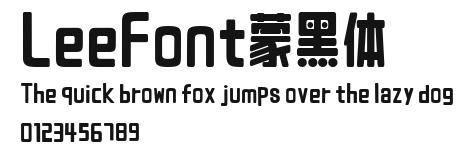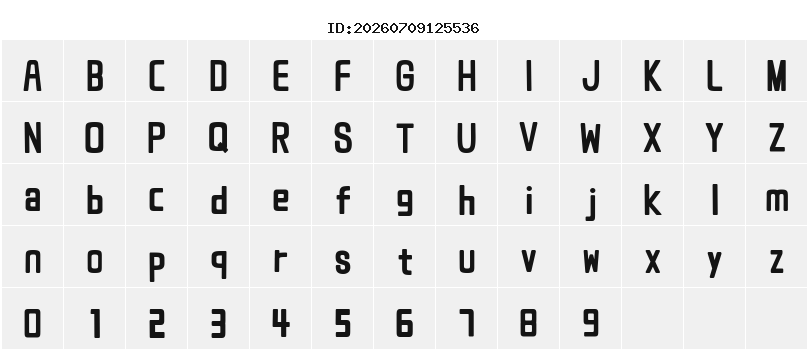
About LeeFont蒙黑体.ttf
LeeFont蒙黑体.ttf is a modern, elegant sans-serif font designed for ultimate readability and visual harmony. Perfect for branding, headlines, web design, and print materials.